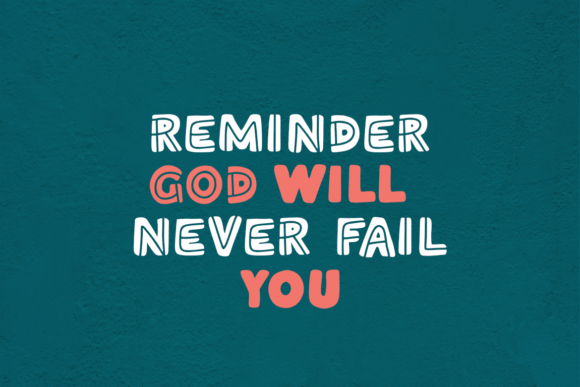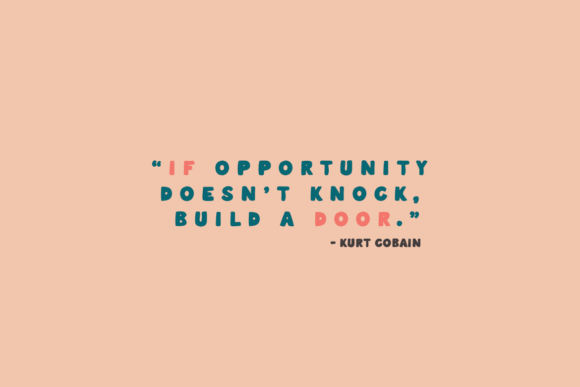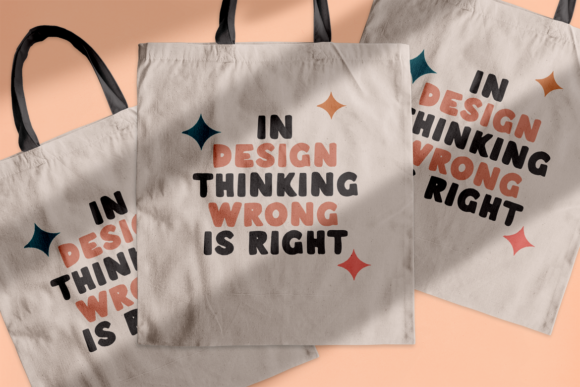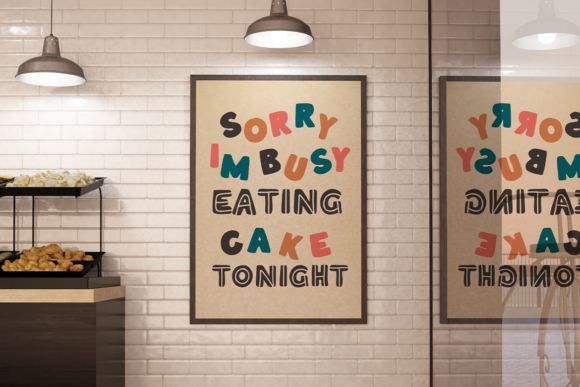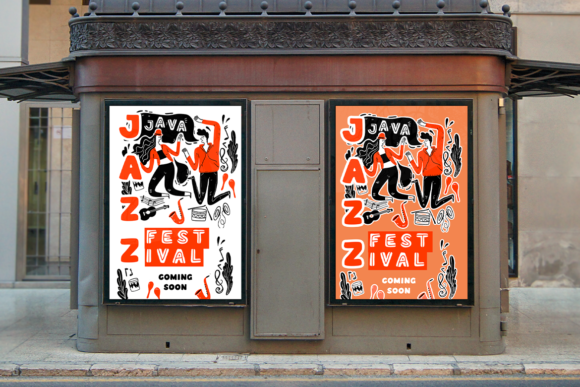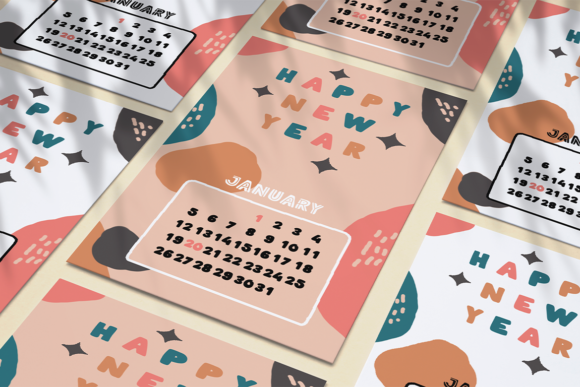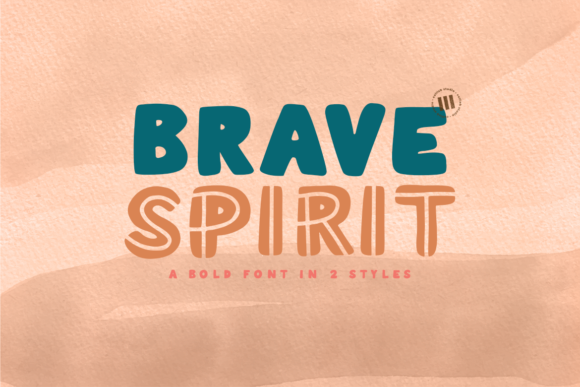
The Ultimate Guide to Brave Spirit Font: Unleashing Creative Potential
Have you ever been in the middle of a design project, and suddenly, it feels like something’s missing? You’re not alone! I recall working on a branding project for a children’s play area, and no matter how hard I tried, the design just didn’t pop. That’s when I stumbled upon the Brave Spirit Font. This fun and eye-catching display font has been a game-changer for me, and I’m excited to share my experience with you!
An Honest Review of Brave Spirit Font
- ✨ Unique and Quirky: Brave Spirit Font has a one-of-a-kind personality that adds a playful touch to any design.
- ✅ Highly Versatile: This font is perfect for a wide range of creative projects, from posters and flyers to social media graphics and crafts.
- 💥 Attention-Grabbing: The font’s bold and eye-catching design ensures your message gets noticed.
While Brave Spirit Font is an amazing addition to any design, there are a few things to keep in mind:
- ⚠️ Legibility at Small Sizes: As with many display fonts, Brave Spirit can be a bit tricky to read at smaller sizes. Make sure to test it in different contexts to ensure it works for your project.
- 🤔 Pairing with Other Fonts: Due to its bold personality, Brave Spirit can be a bit overwhelming when paired with other fonts. Experiment with different combinations to find the perfect balance.
The Backstory Behind Brave Spirit Font
Brave Spirit Font was designed with one goal in mind: to create a font that inspires creativity and adds a touch of playfulness to any design. The designer, a self-proclaimed font enthusiast, wanted to craft a font that would make designers feel confident and bold. And, with its unique personality and versatility, Brave Spirit Font has achieved just that!
| Font Name | Brave Spirit Font |
| Author | colllabstudio |
Q: What type of projects is Brave Spirit Font best suited for?
A: Brave Spirit Font is perfect for a wide range of creative projects, including posters, flyers, social media graphics, crafts, and more!
Q: Is Brave Spirit Font available in different weights or styles?
A: Currently, Brave Spirit Font is available in a single weight. However, the designer may release additional weights or styles in the future, so keep an eye on their website for updates!